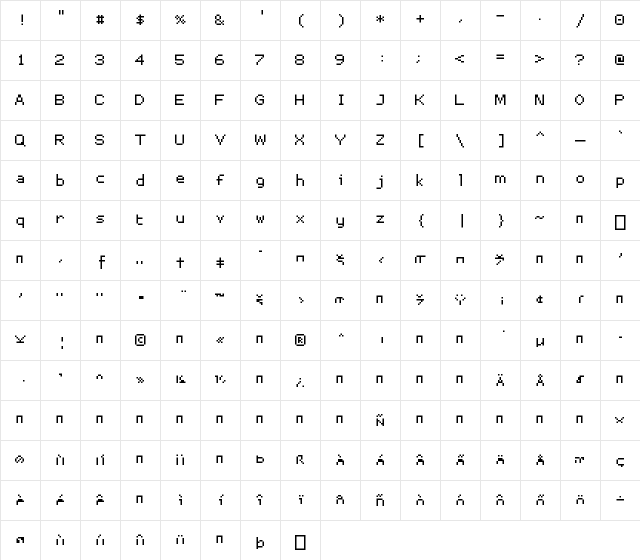
ProggySmallTT Regular Free Font
ProggySmallTT Regular
Complete ProggySmallTT Regular glyph index. Displaying only characters natively supported by ProggySmallTT Regular font.
Design Context for ProggySmallTT
ProggySmallTT is a composed and adaptable typeface that performs quietly and consistently across a wide range of design contexts.